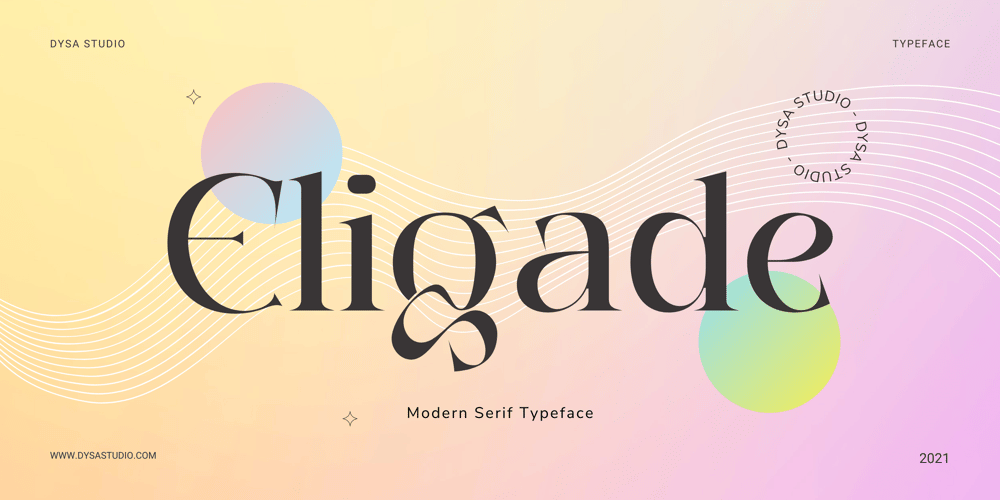
Eligade
Eligade font
Eligade Font Family was designed by Yusup Saputra and published by DYSA Studio. Eligade contains 1 styles and family package options. Eligade a New Modern Serif Typeface. This another collection of Serif is perfect for your next branding project, excellent for your business. Eligade have a smooth edges, so this font gives an authentic handcrafted feel style.